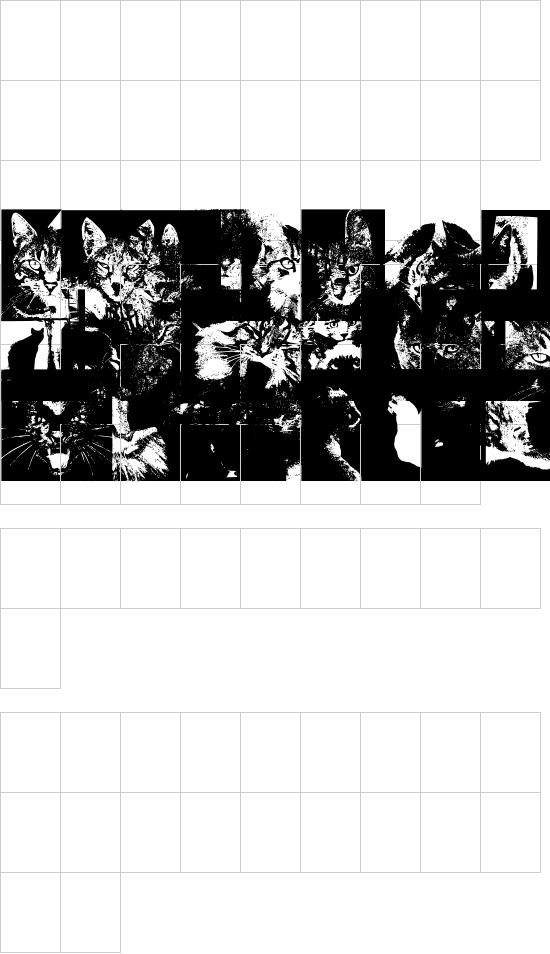
CatBats is an animal dingbat font filled with cat-themed picture glyphs in place of letters. Each key delivers a feline graphic, from poses to playful motifs, ready to use as decoration rather than text.
Those symbols work for pet branding, sticker sheets, children's graphics, and playful social media accents. CatBats is free to download as a TrueType file, and you can preview it by typing across the keyboard to see which cat glyphs appear before placing them.